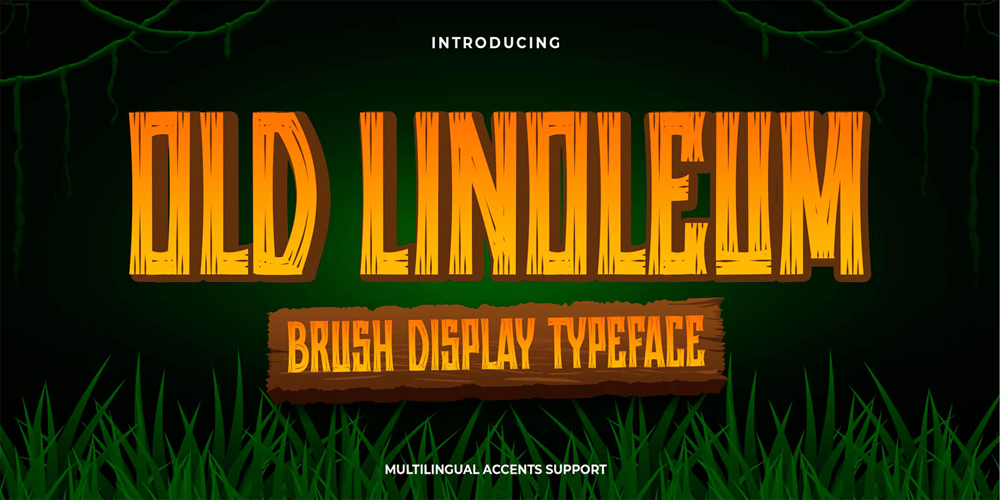
Old Linoleum
Old Linoleum font
Old Linoleum Font Family was designed by Abdul Malik Wisnu, Anang Fibriyanto and published by Gassstype. Old Linoleum contains 1 styles and family package options. Hello Everyone, introduce our new product Old Linoleum is Brush Display Typeface with a natural feel. This handmade font will make your design has a beautiful natural touch for each details. It is perfect for any design project as Invitation,logo, book cover, craft or any design purposes.Old Linoleum is Inspired by Logo style and combination with Unique Craft style. that will fulfill your design needs for quotes,sporty theme, logotype, wordmark, etc. This has many opentype features and support multi language.This font is PUA encoded which means you can access all of the magical glyphs with ease!